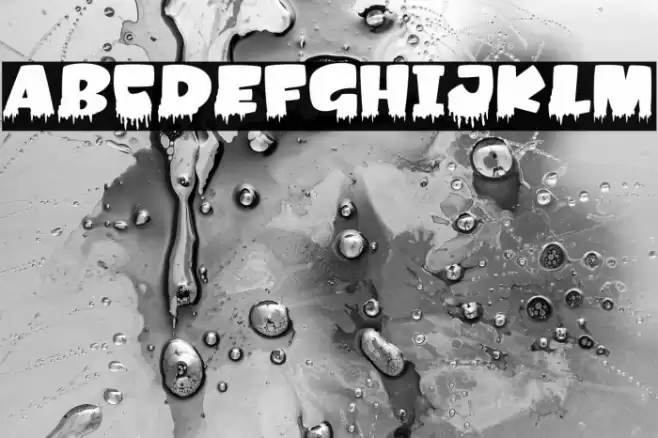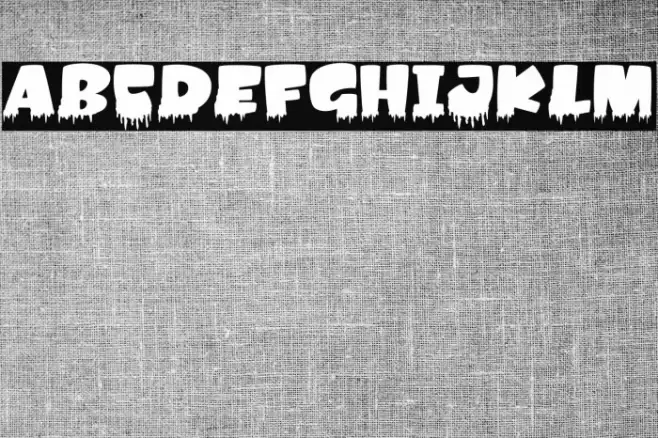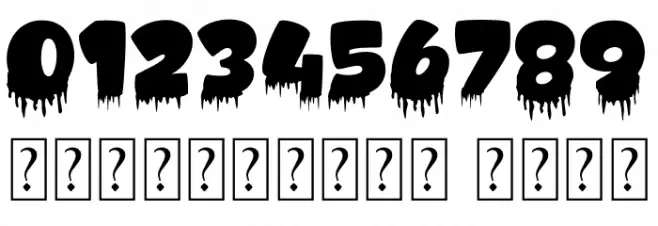
Amonk-Blood Font
Amonk-Blood Description
This font features a bold and dramatic style with a dripping effect that resembles blood or paint, making it ideal for horror-themed designs. The characters are thick and heavy, with a playful yet eerie appearance. The uppercase and lowercase letters maintain a consistent style, while the numbers and special characters also follow the same dripping motif. The overall look is eye-catching and perfect for creating a spooky atmosphere.
A bold, dripping font ideal for horror themes from Uncategorized fonts.
- Font: Amonk-Blood
- Proposed Projects: Perfect for Halloween posters, horror movie titles, haunted house flyers, and themed party invitations.